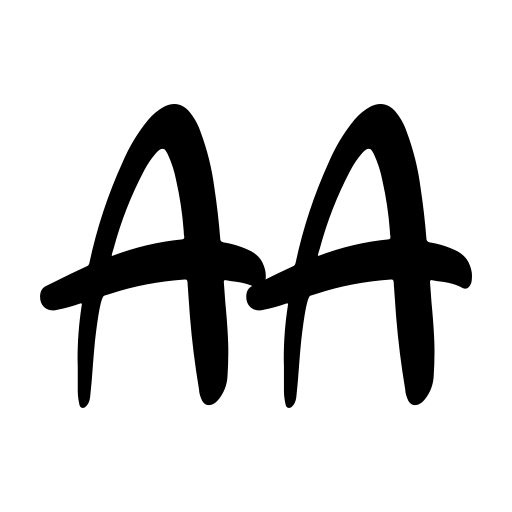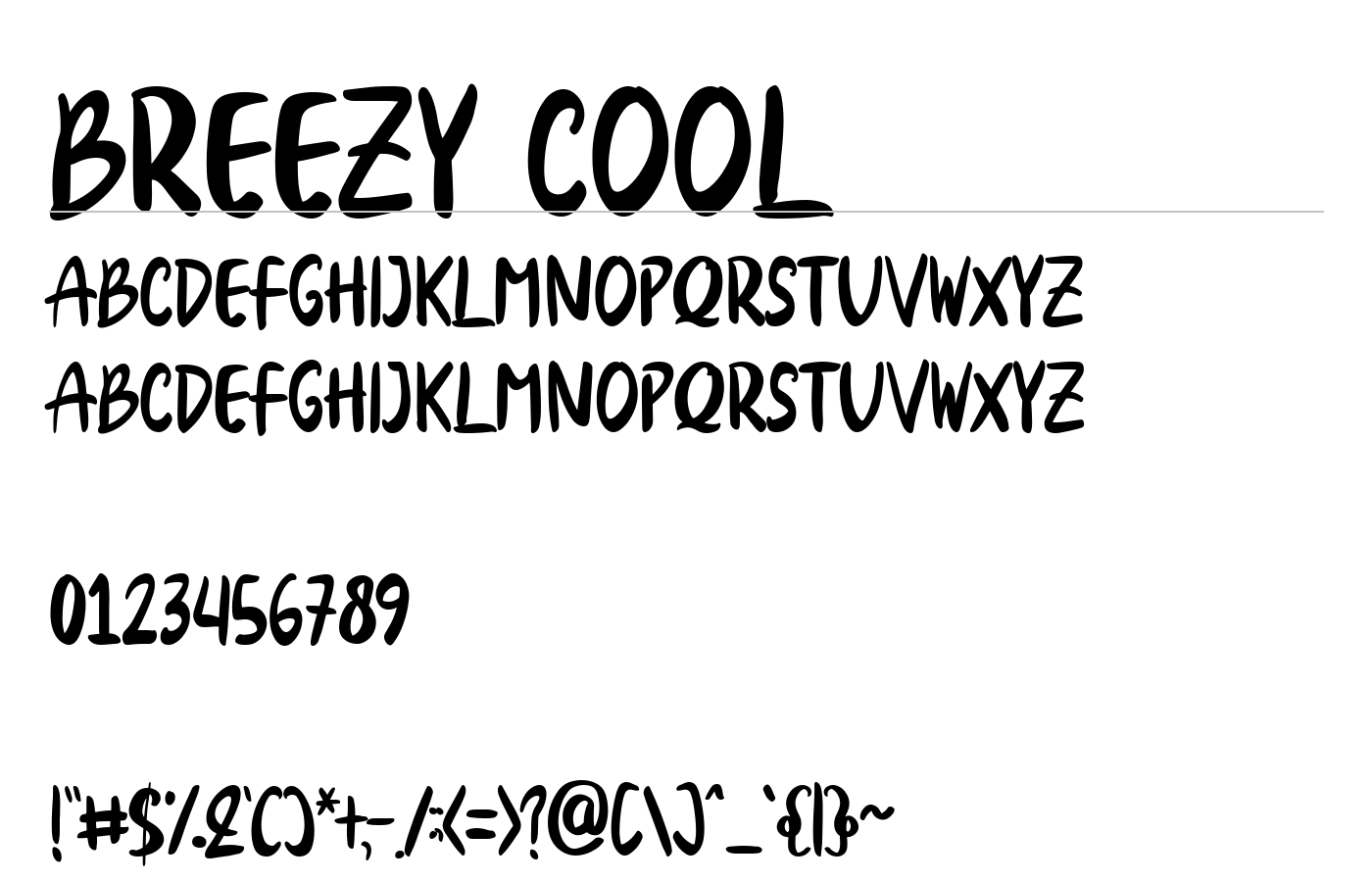
Breezy Cool Font is a playful, casual handwritten sans serif typeface with a lively and friendly vibe. Its irregular strokes and slightly condensed letterforms give it an approachable, energetic appearance that works well for informal branding, fun headlines, and creative projects needing a personal touch. This font is perfect for designs seeking a youthful, relaxed, and inviting atmosphere.
Breezy Cool Font
About Breezy Cool Font